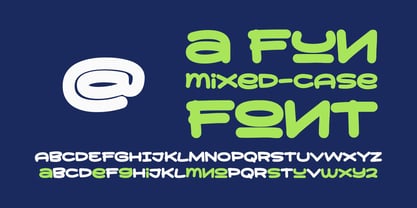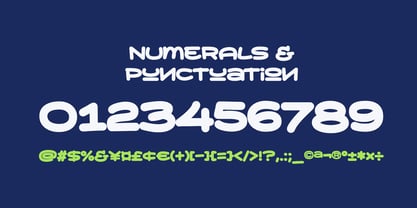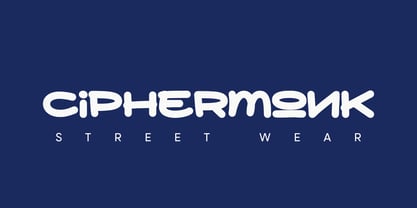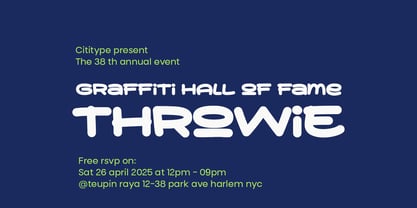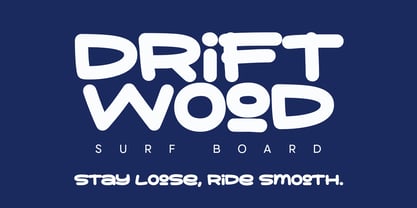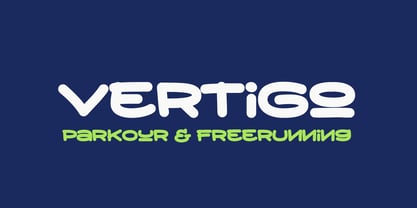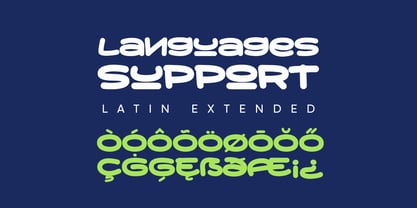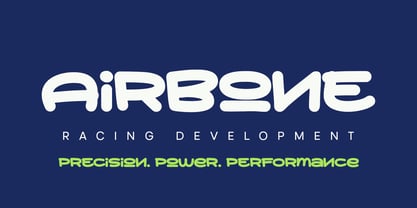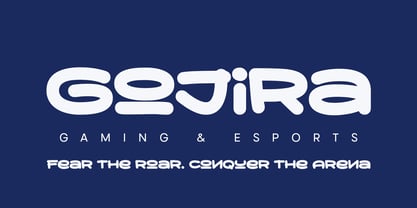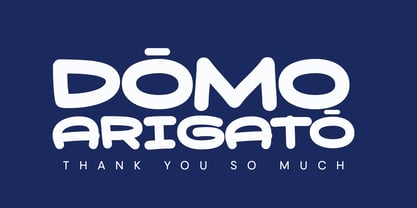
Orbost
by MMMA Creative
The Orbost Font Family was designed by Muhammad Ridha Agusni, Muhammad Mevlana Maliq Azizi and published by MMMA Creative. Orbost contains 1 styles.
Orbost is that wild graffiti font that hits different. Rockin’ a mixed case style, it brings mad energy and raw street vibes straight to your designs. Whether you’re reppin' an urban brand, killin' it in streetwear, or need a logo that pops, Orbostgot your back.
This font’s all about bold moves—loud, edgy, and full of attitude. Perfect for hype fashion drops, dope logos, or sport visuals that need that young, untamed flair. The mix of upper and lowercase gives it that freestyle look, like it was tagged fresh off the wall.
If your brand speaks hustle, youth, and street heat—Orbost speaks your language.
Designers: Muhammad Ridha Agusni, Muhammad Mevlana Maliq Azizi
Publisher: MMMA Creative
Foundry: MMMA Creative
Design Owner: MMMA Creative